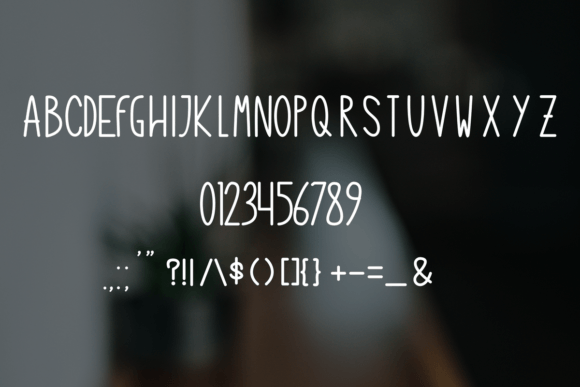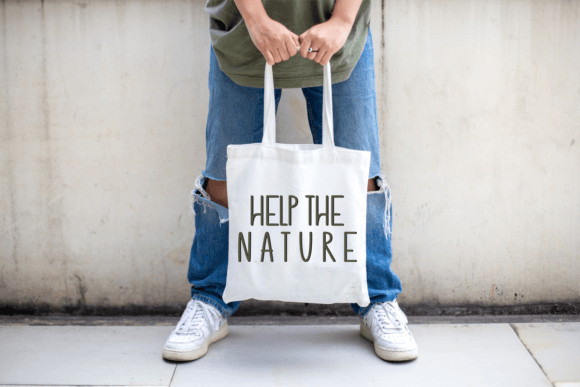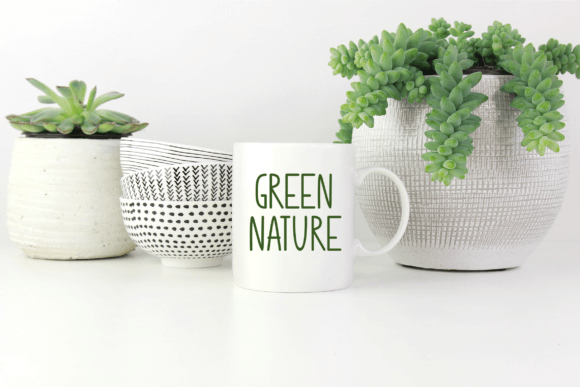
Introduction to Payumilli Font Font
Fonts play a crucial role in design, and the Payumilli Font font is a typeface that brings both character and versatility to any project. Whether you’re working on a branding project, a website, or a print design, the Payumilli Font font offers a unique style that can elevate your work.
Payumilli is a modern all-caps handwritten font perfect for helping your design to be cooler and more modern.
It is very suitable for products such as logos, t-shirts, mock-ups, banners, and others .
Key Features of Payumilli Font Font
Why Choose Payumilli Font Font?
The Payumilli Font font is more than just a typeface – it’s a design tool that helps you communicate your message with style and clarity. Its unique character set and versatile design make it suitable for a wide range of applications, from elegant invitations to bold headlines.
With its carefully crafted letterforms and balanced proportions, the Payumilli Font font ensures readability and visual appeal across all mediums.
What makes Payumilli Font font special?
The Payumilli Font font stands out with its unique design, exceptional readability, and versatility across various design applications.